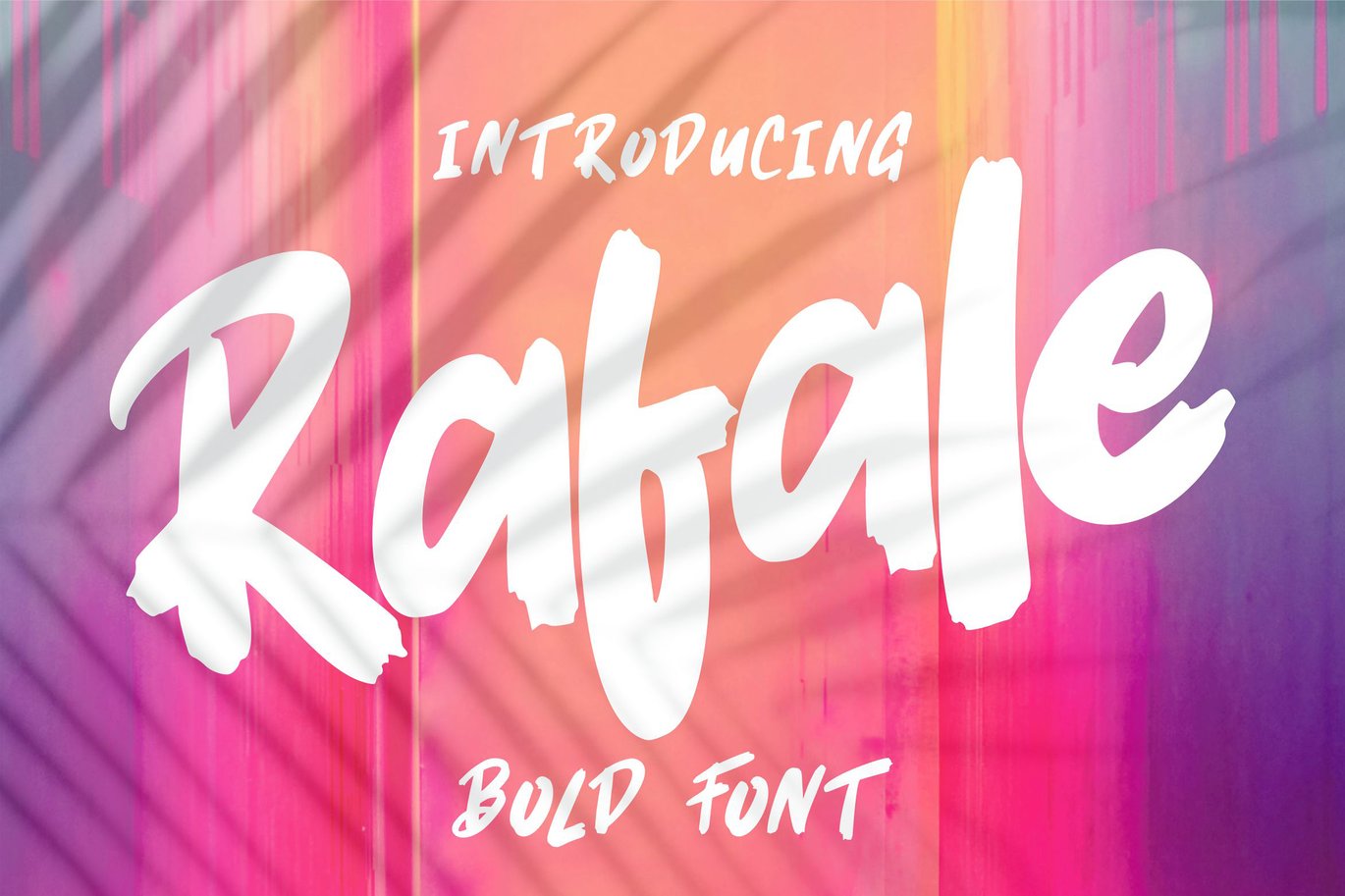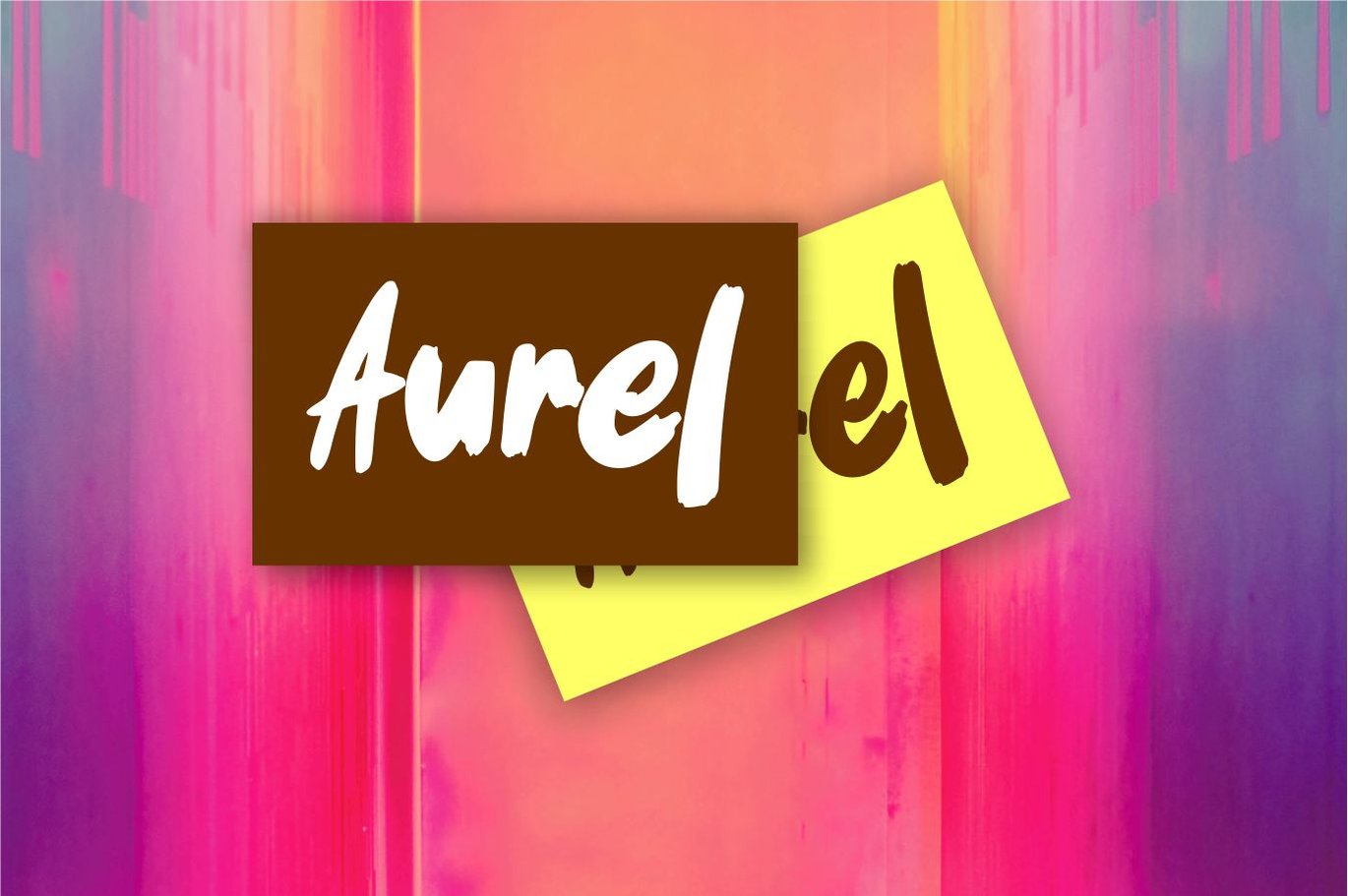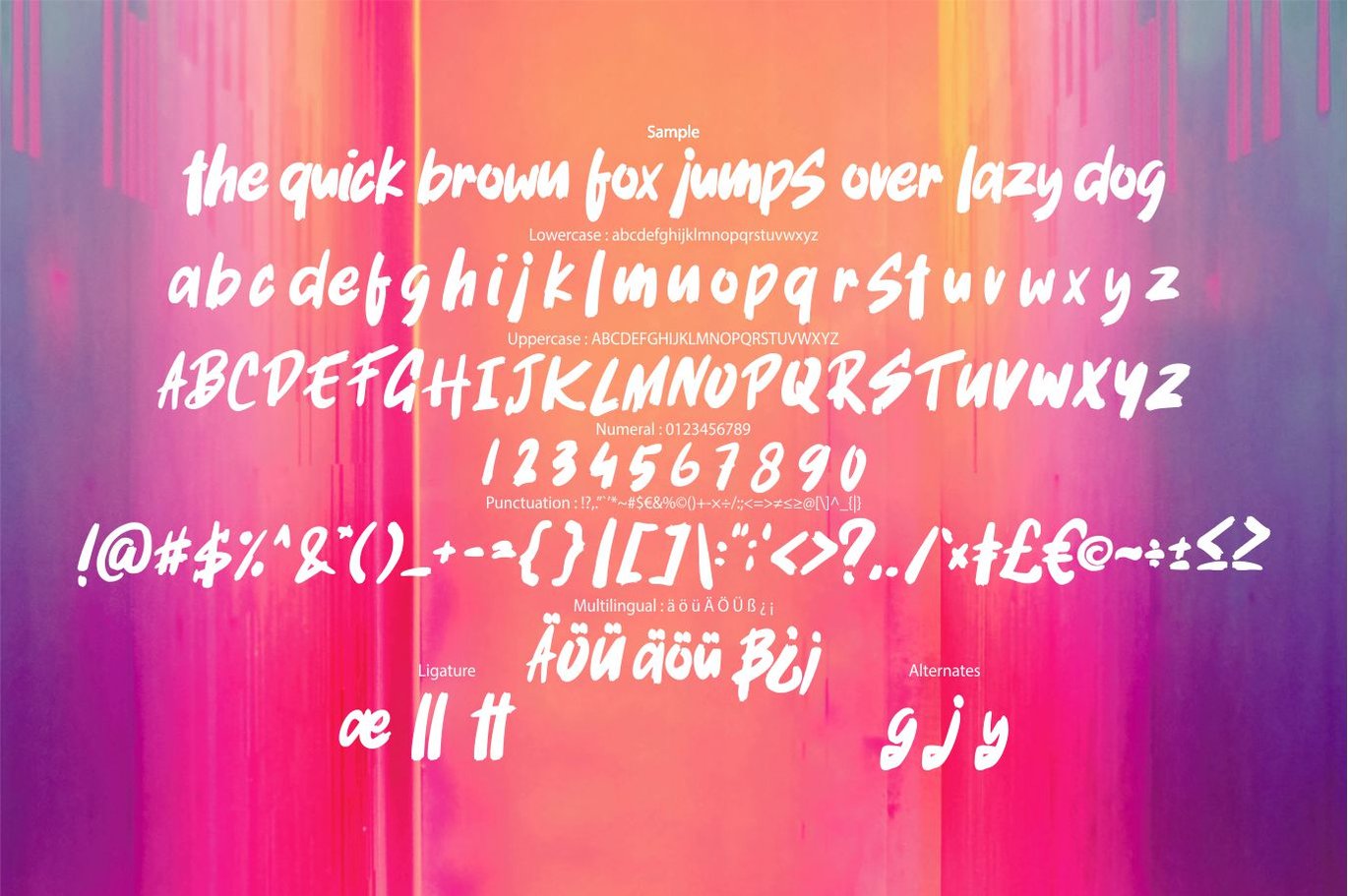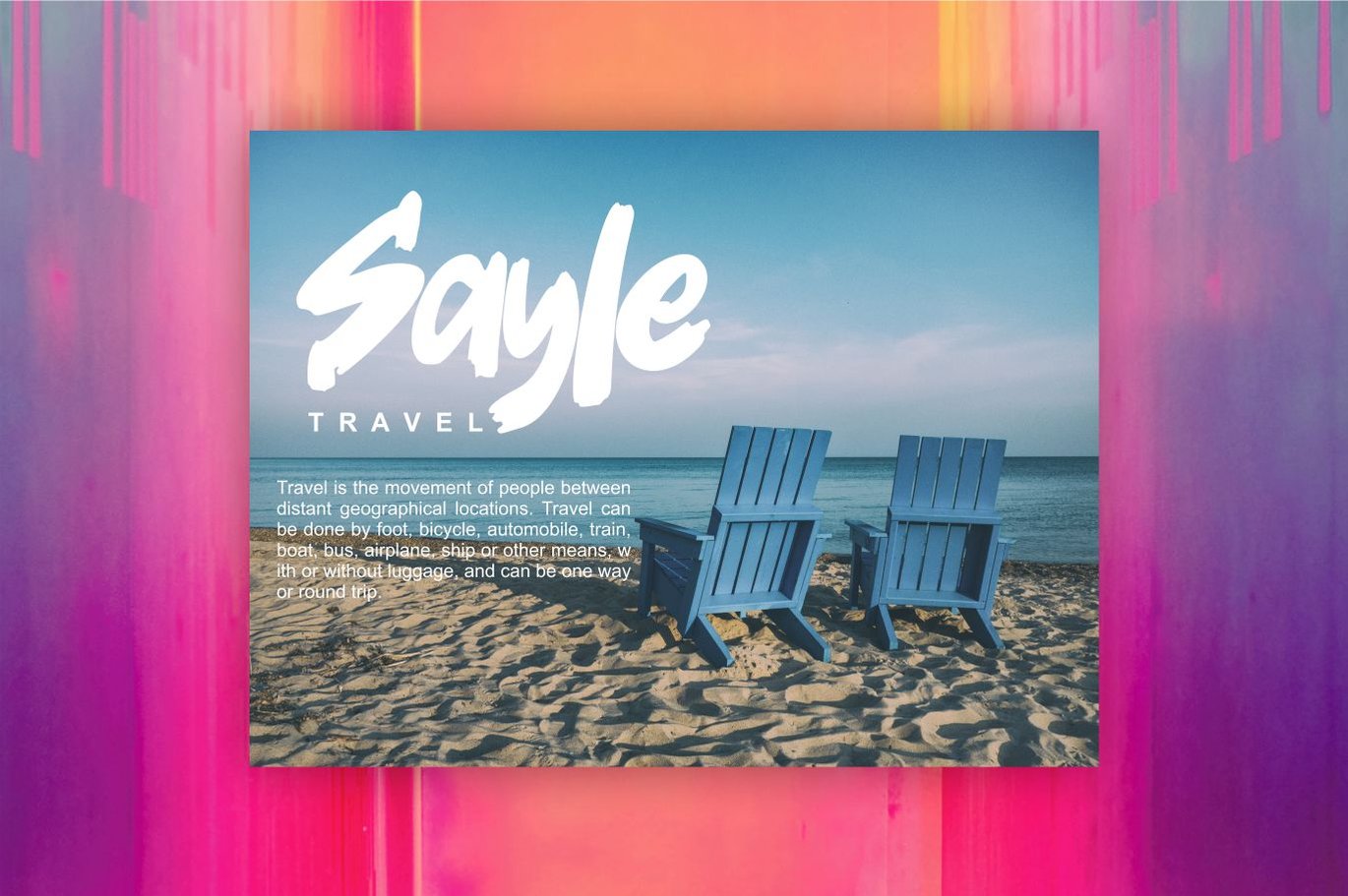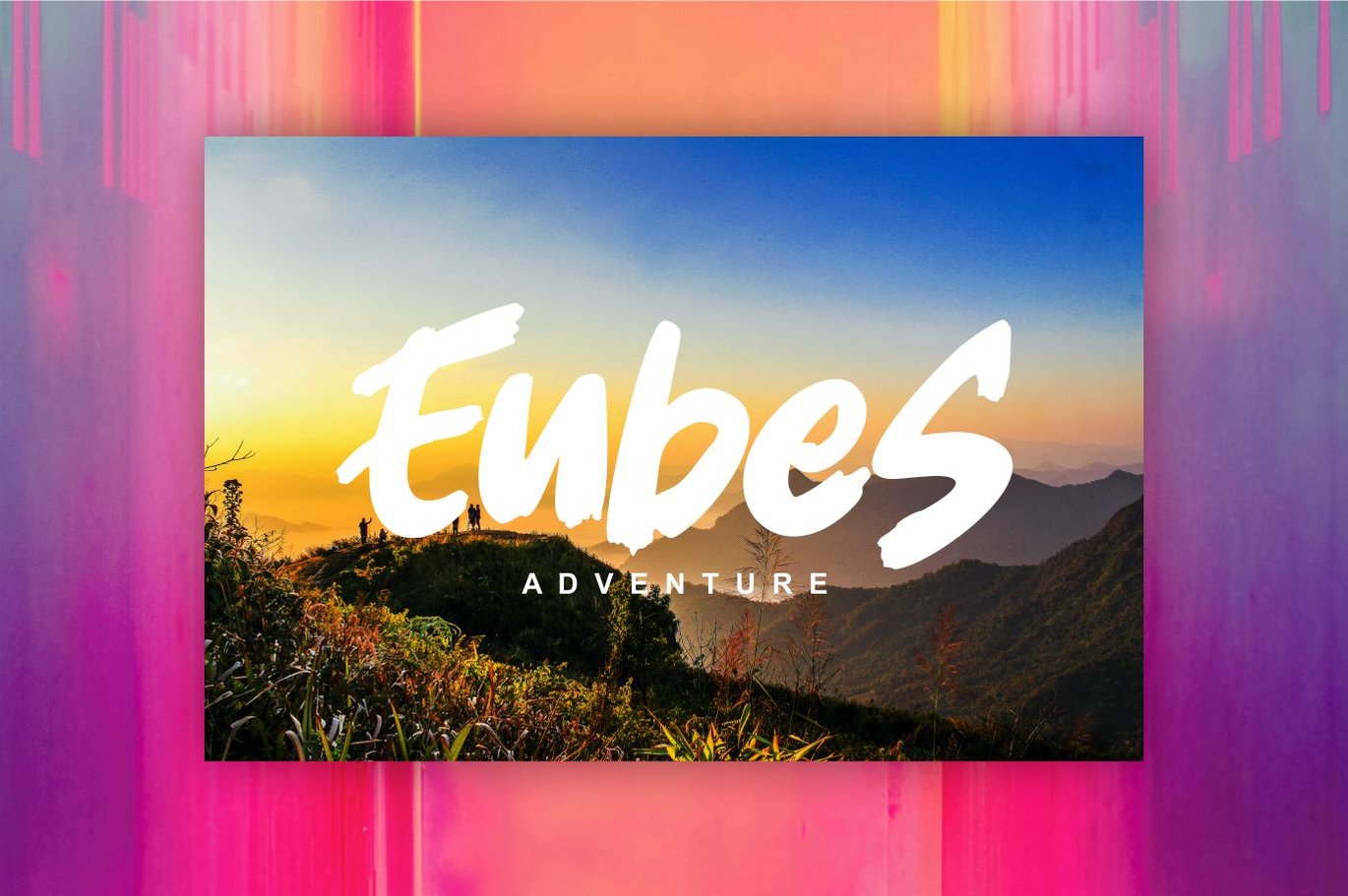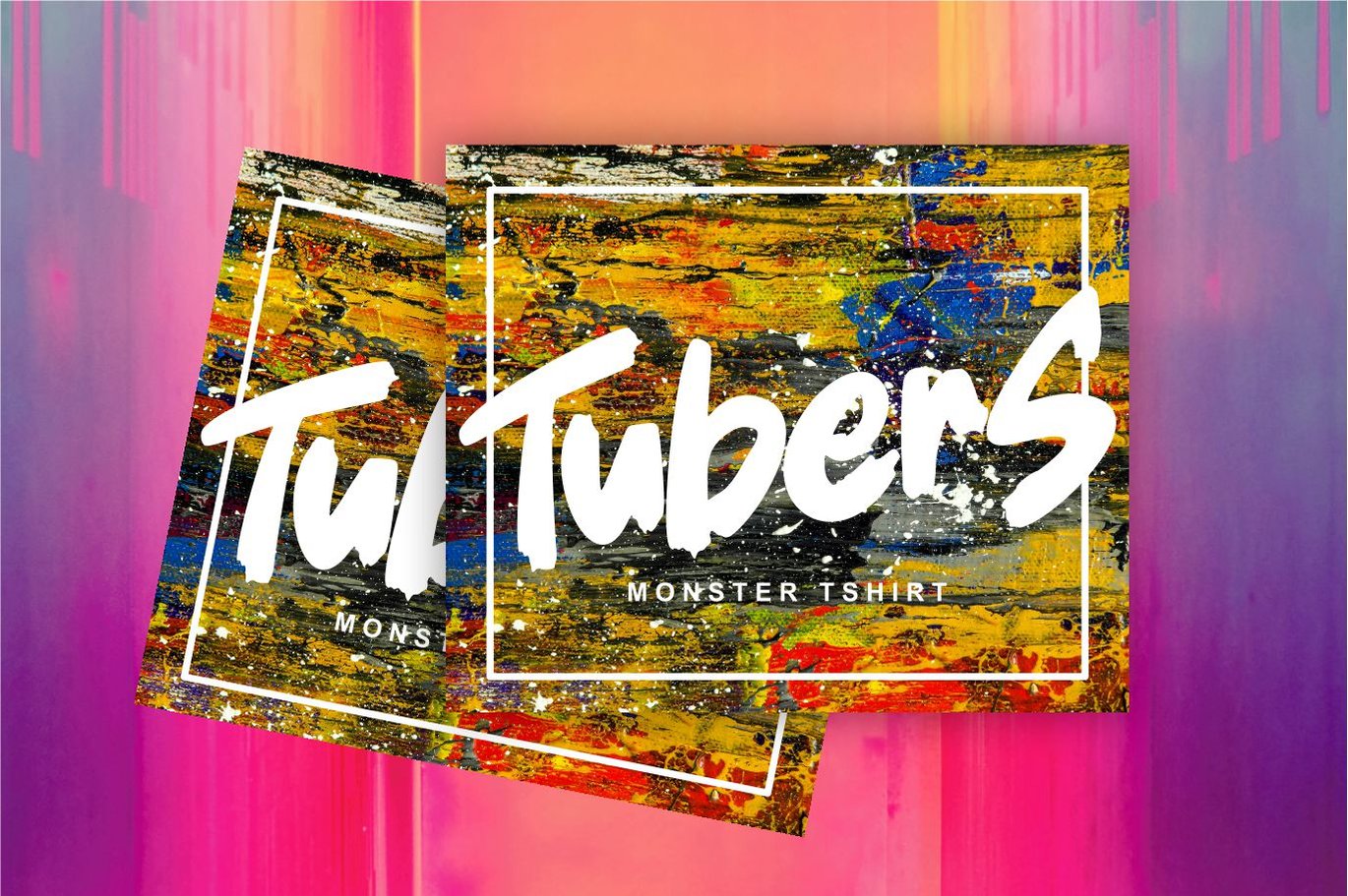
Rafale | Bold Font
Rafale | Bold Font with a calligraphy style, So beautiful on invitation like greeting cards, branding materials, business cards, quotes, posters, and more!